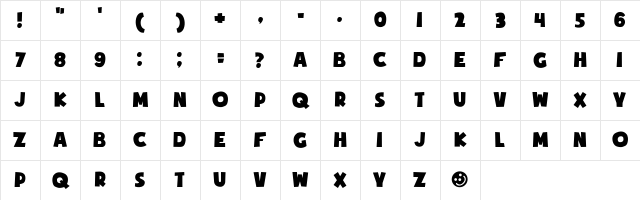
Complete Soup of Justice glyph index. Displaying only characters natively supported by Soup of Justice font.
Soup of Justice is a composed and adaptable typeface that performs quietly and consistently across a wide range of design contexts.
Who designed the Soup of Justice font?